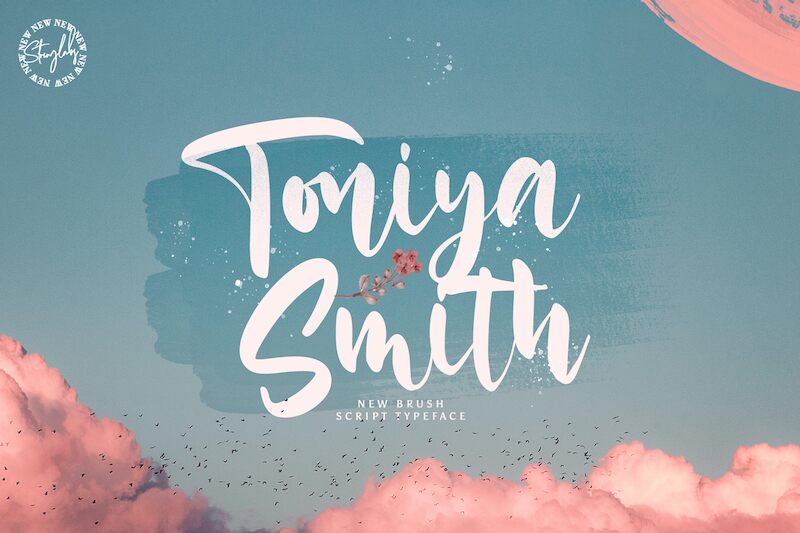
Toniya Smith
Toniya Smith is a cool handwritten script font designed by Virgiawan Listanto. It's the perfect choice for creative projects like logo designs, wedding invitations, greeting cards, posters and much more!